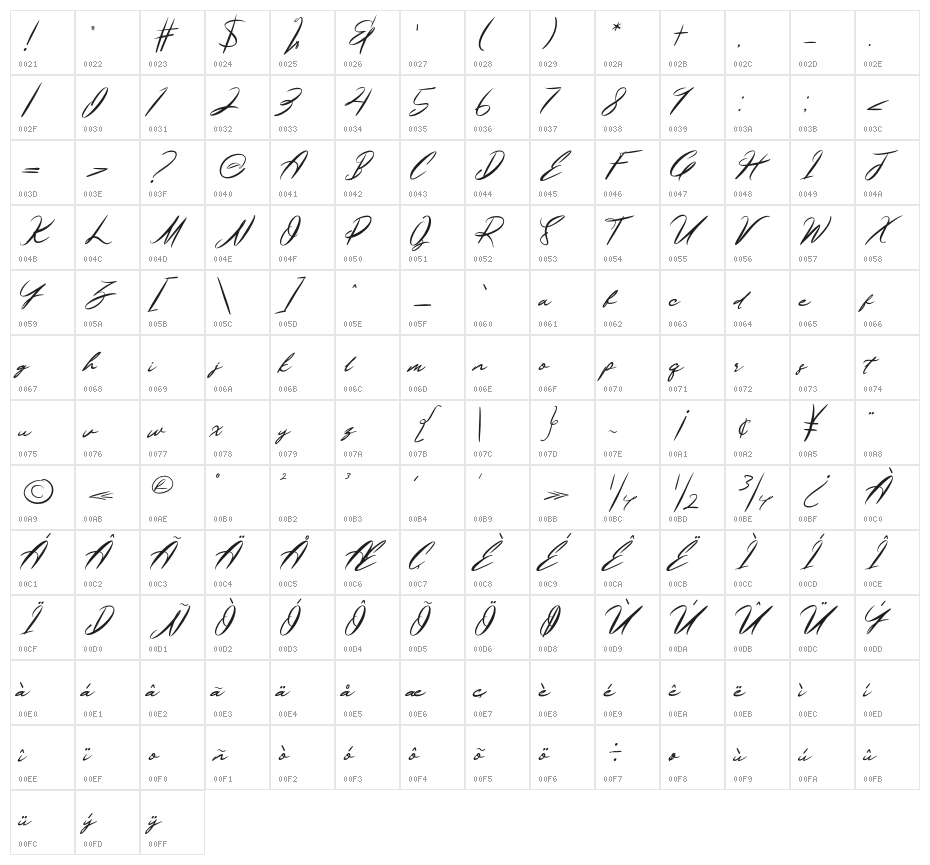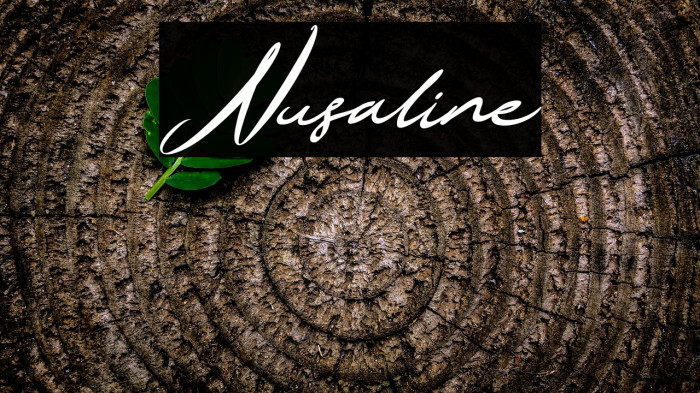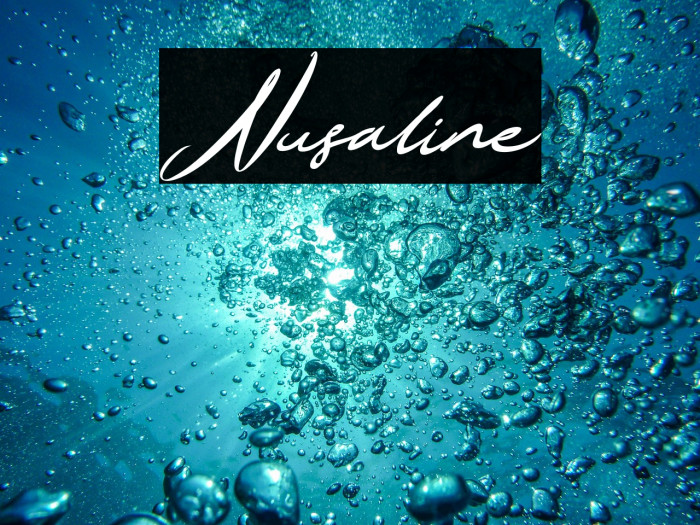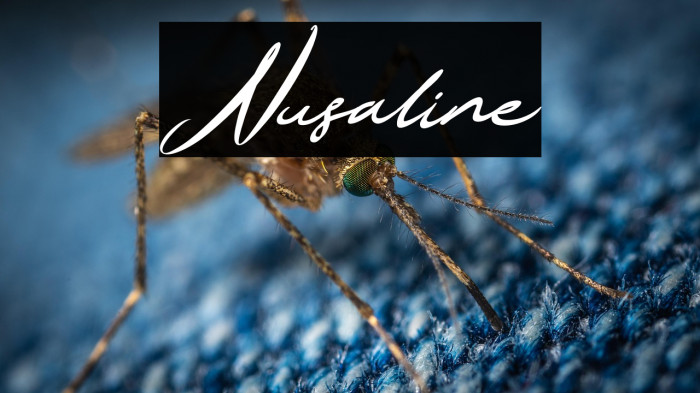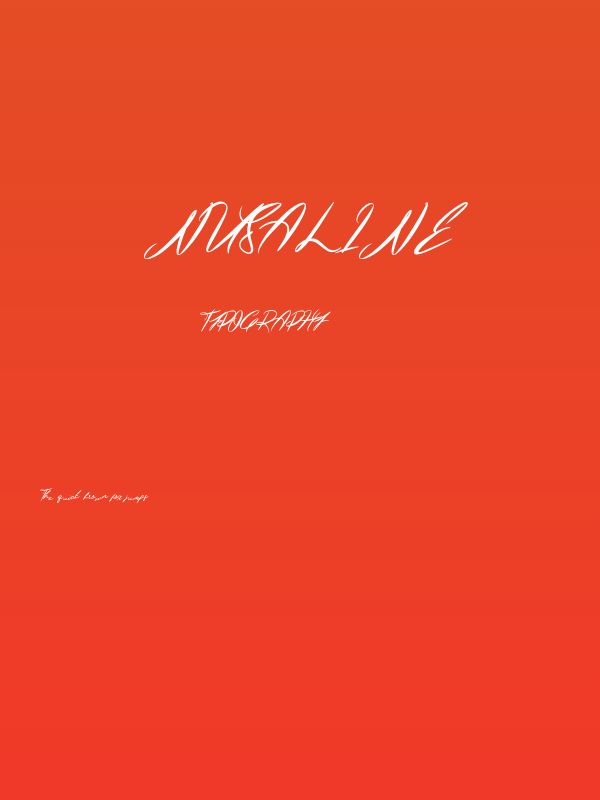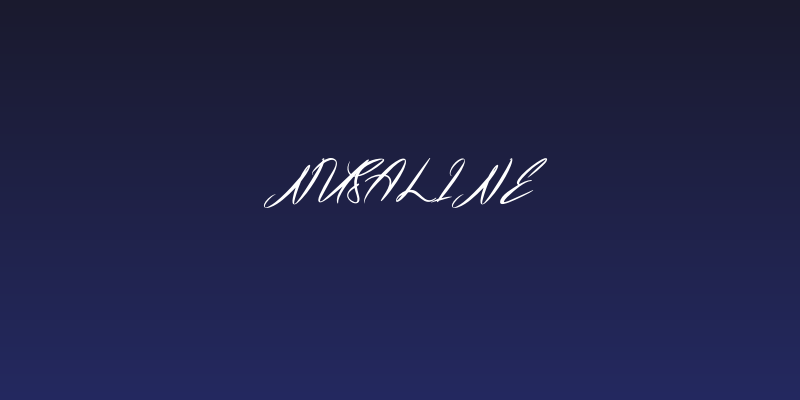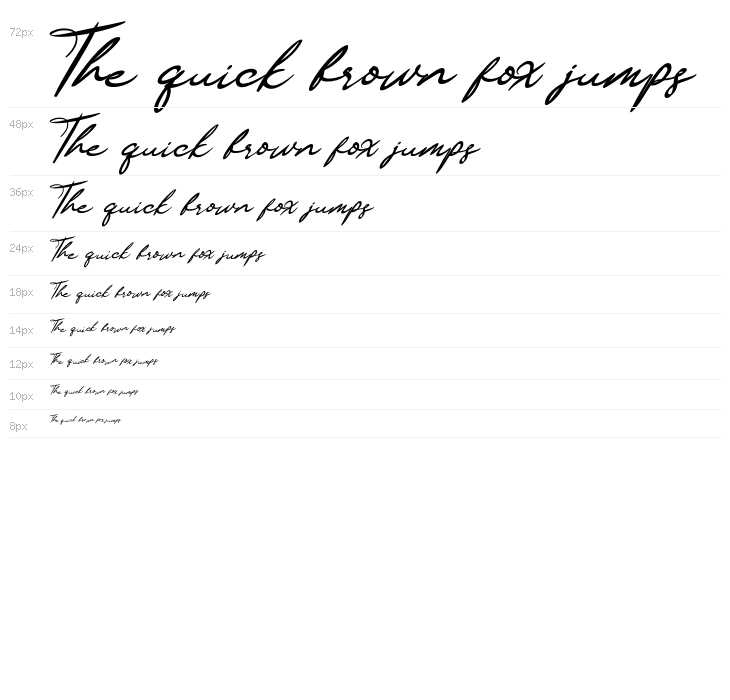
Nusaline Font
Nusaline Description
A flowing, cursive script font with elegant, connected strokes and a handwritten appearance.
Use CaseLogos, Invitations
Proposed ProjectsInvitations, greeting cards, branding.